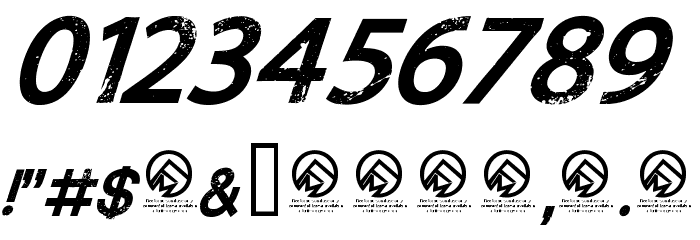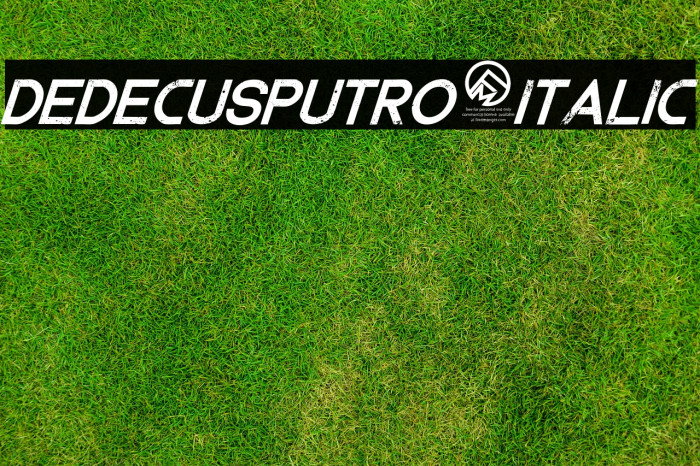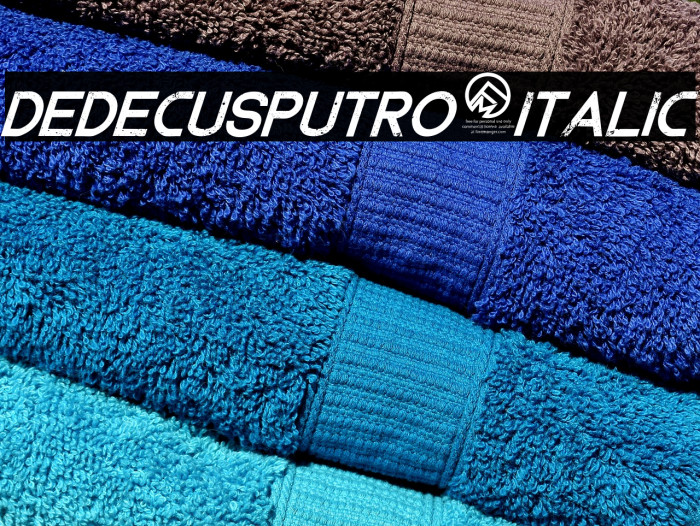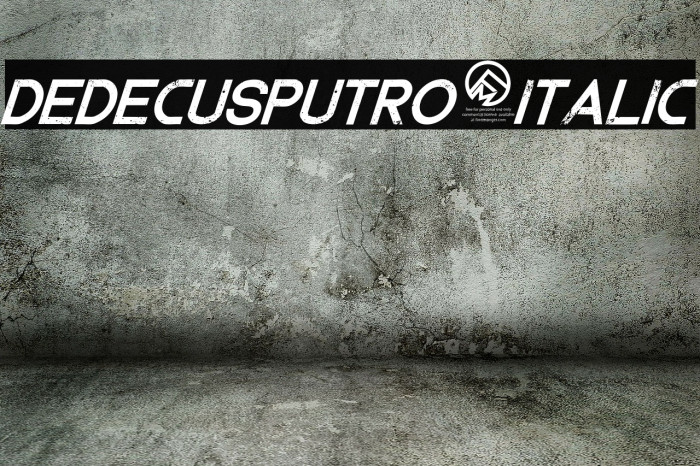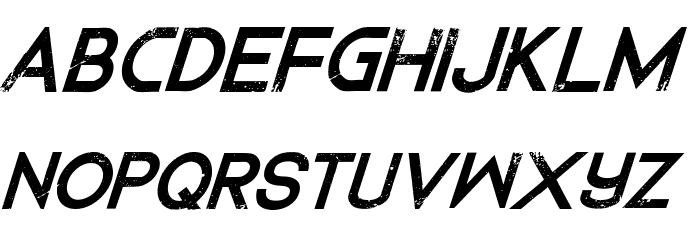
DedecusPutro-Italic Font
DedecusPutro-Italic Description
This font features a distressed, italicized style with a bold and dynamic appearance. The characters have a textured, worn effect that gives them a rugged and edgy look. The uppercase and lowercase letters maintain a consistent slant, enhancing the italic nature of the font. The numerals and special characters follow the same design, ensuring uniformity across all glyphs. The font's bold strokes and unique texture make it stand out, suitable for projects that require a strong visual impact.
| Use Case | Logos, Headlines, Posters |
| Proposed Projects | Ideal for branding, posters, album covers, and any design requiring a bold, edgy aesthetic. |